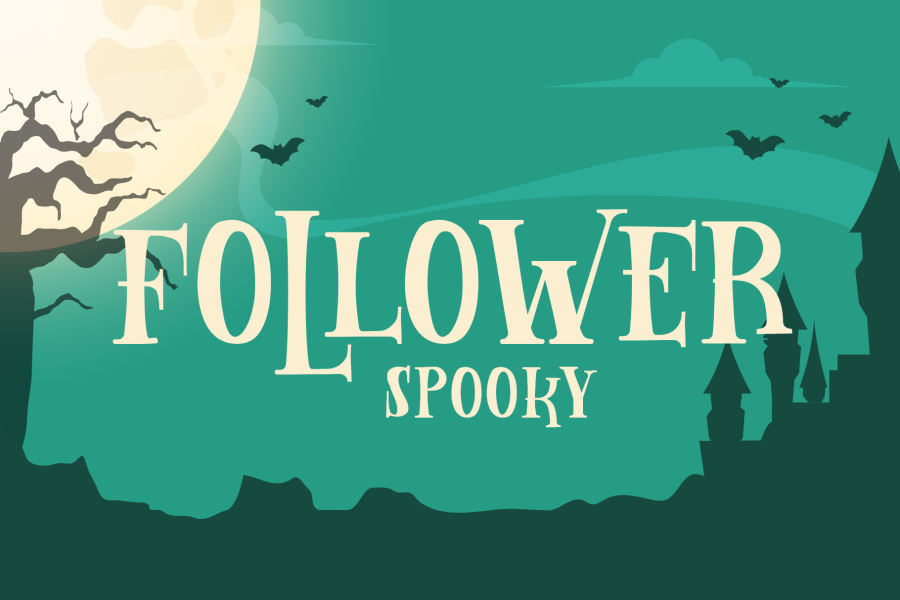
Follower Spooky Font Font 1001 Fonts Follower spooky font download is available free from fontget. follower spooky is a holiday type font that can be used on any device such as pc, mac, linux, ios and android. Examples of this font can be found on the font site download free fonts, designed by yesaya amnestian, include the number of glyphs 119 characters. let your words take flight with this font — where modern elegance meets artistic expression. Yesaya amnestian follower spooky font copyright (c) 2022 by nestype studioi. all rights reserved . Follower spooky font is a typeface designed for your halloween decoration needs, not only that follower spooky halloween font is also suitable for spooky posters.